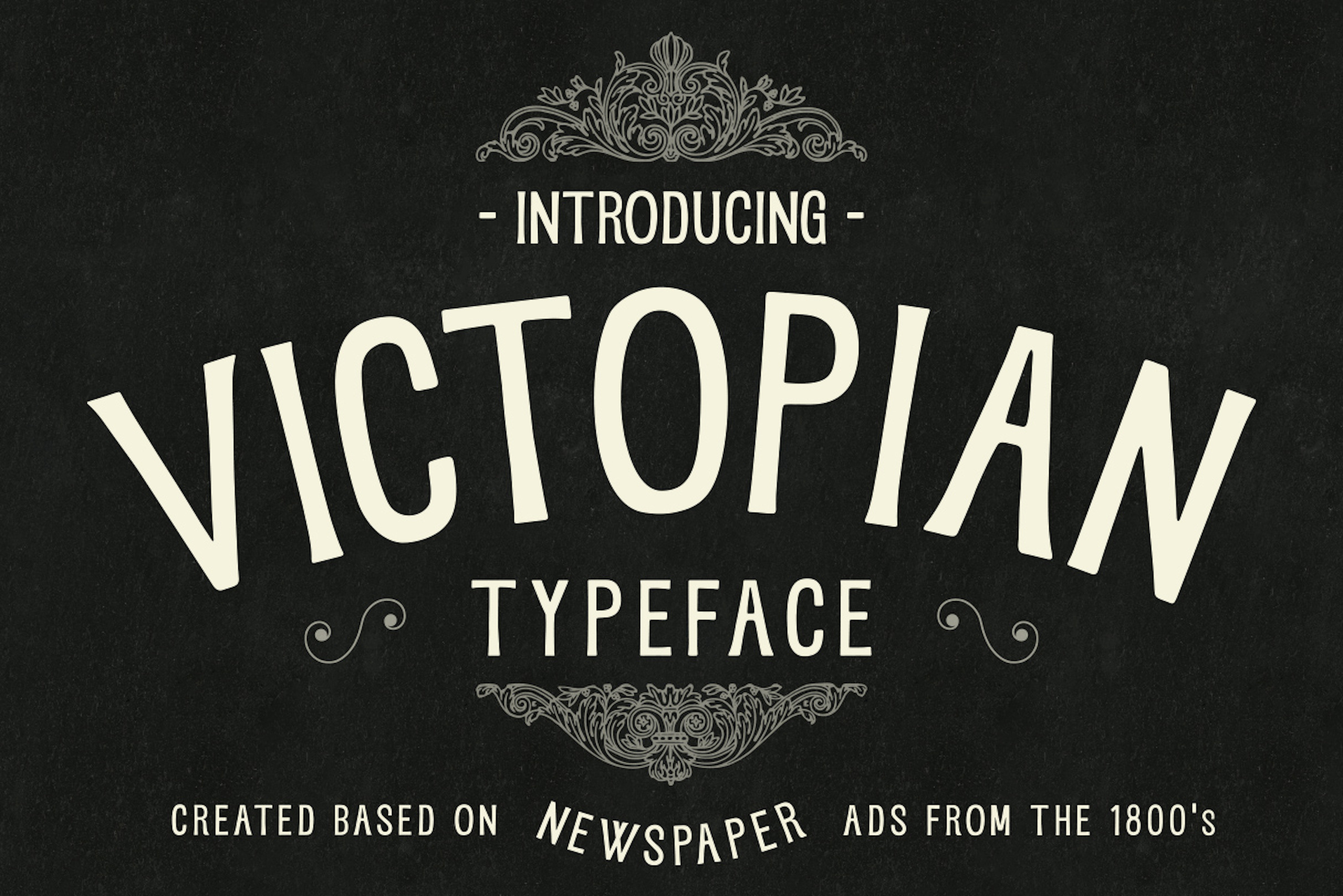
VICTOPIAN - A Vintage Display Font
A gorgeous display type with a vintage vibe. I designed this font based on ads from victorian newspapers to give that old-world feel to any project.